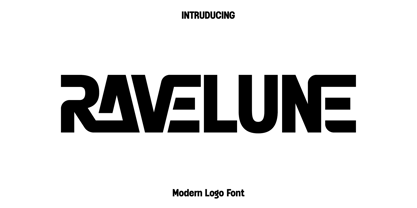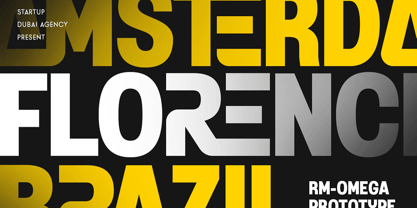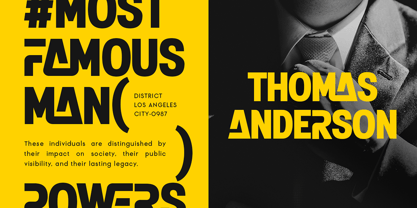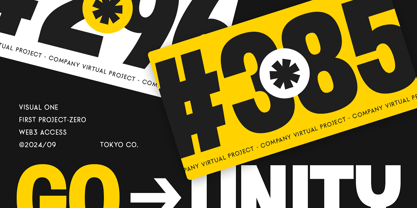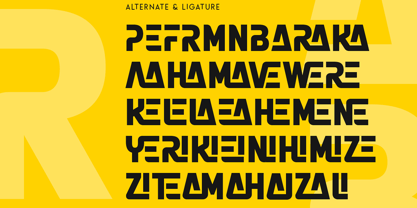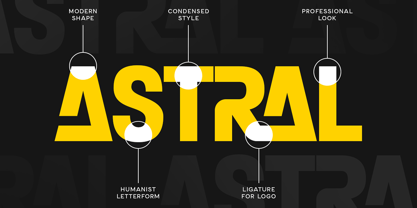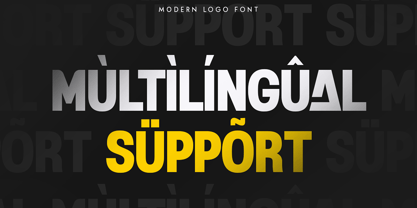
Ravelune
Die Schriftfamilie Ravelune wurde von Olivia Love entworfen und von Only Fonts veröffentlicht. Ravelune enthält 1 Stile. Mehr über diese Familie
Ravelune – Modern Logo Font Ravelune is a modern logo font designed to infuse clean sophistication, bold character, and contemporary style into your creative projects. Drawing inspiration from minimalist typography and geometric design principles, Ravelune showcases sharp, well-balanced letterforms that establish a refined and professional visual identity. Its sleek construction offers a modern aesthetic that feels timeless, making it an ideal choice for designers who appreciate both elegance and functionality. Perfectly suited for branding and identity work, Ravelune excels in applications such as logos, business branding, headlines, packaging, editorials, websites, social media graphics, advertising campaigns, and premium marketing materials. Its bold yet clean appearance allows your typography to convey confidence and professionalism while ensuring high readability across both print and digital platforms. Created for designers who seek typography that seamlessly adapts to modern design trends without compromising originality, Ravelune's geometric forms and meticulously crafted proportions make it an excellent fit for luxury brands, creative agencies, technology companies, fashion labels, startups, and corporate identities. Whether you are crafting a memorable logo or developing a comprehensive visual identity, Ravelune delivers the versatility and impact necessary to make your work stand out. With its modern personality and balanced structure, Ravelune elevates simple typography into a distinctive branding element that leaves a lasting impression. It is an essential typeface for designers in search of a clean, bold, and sophisticated logo font. Ravelune Font Features: • Bold and modern characters • Uppercase and lowercase letters • Numerals, punctuation, and symbols • OpenType features • Multilingual support • Clean geometric letterforms • Ideal for logos, branding, editorials, packaging, and headlines • Suitable for both print and digital projects
Designer: Olivia Love
Foundry: Only Fonts